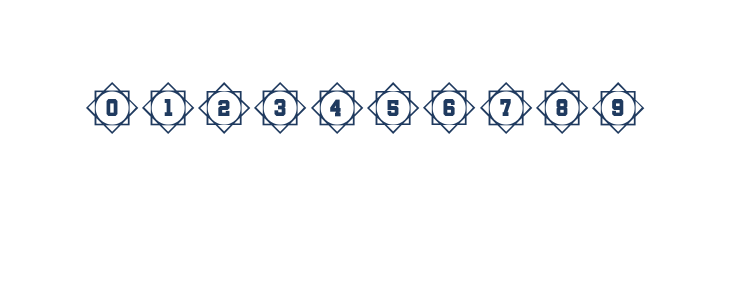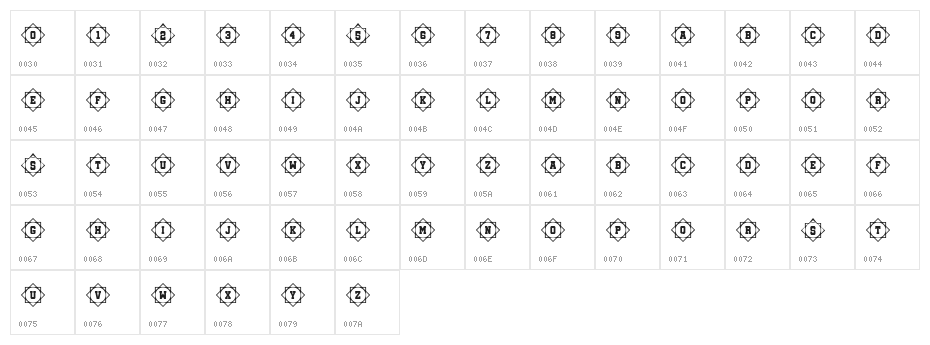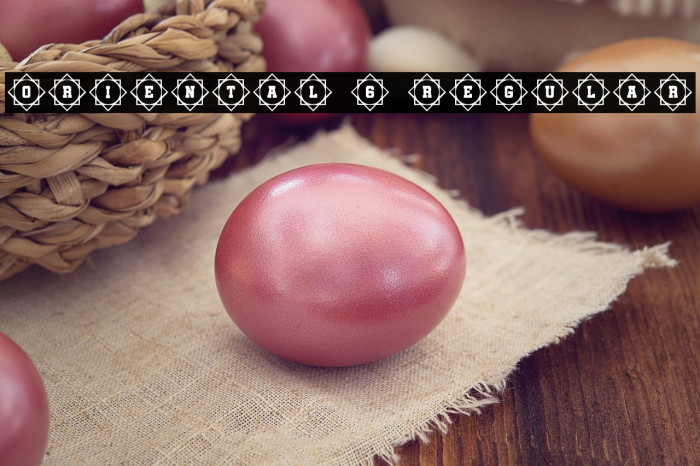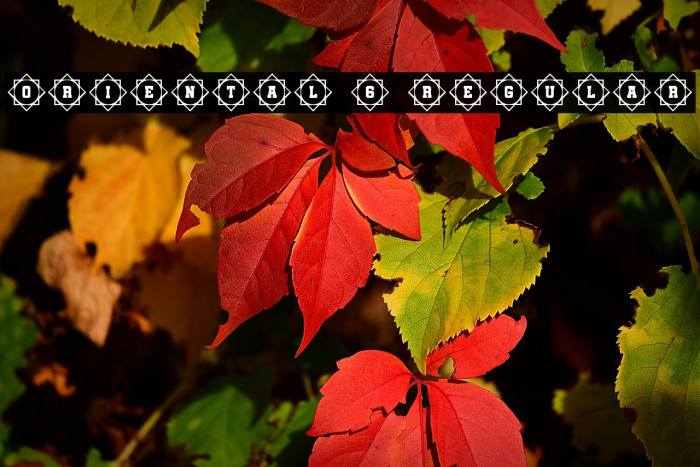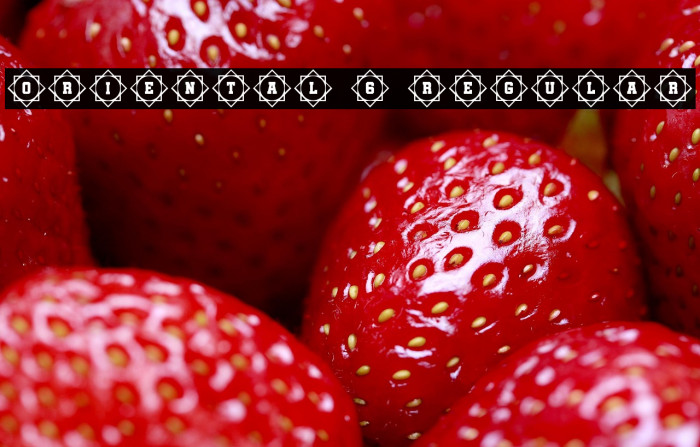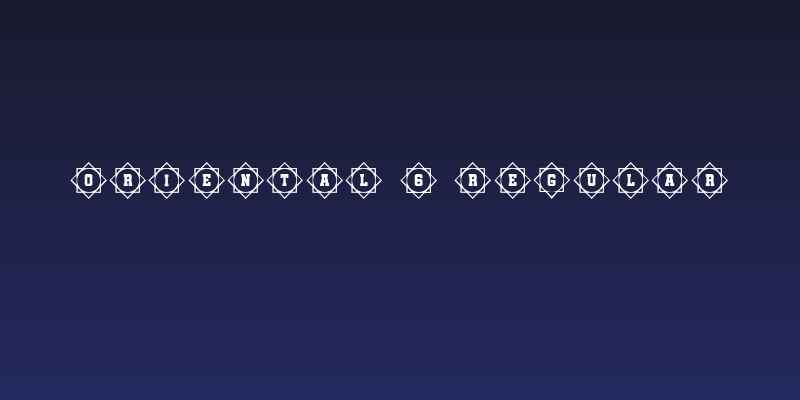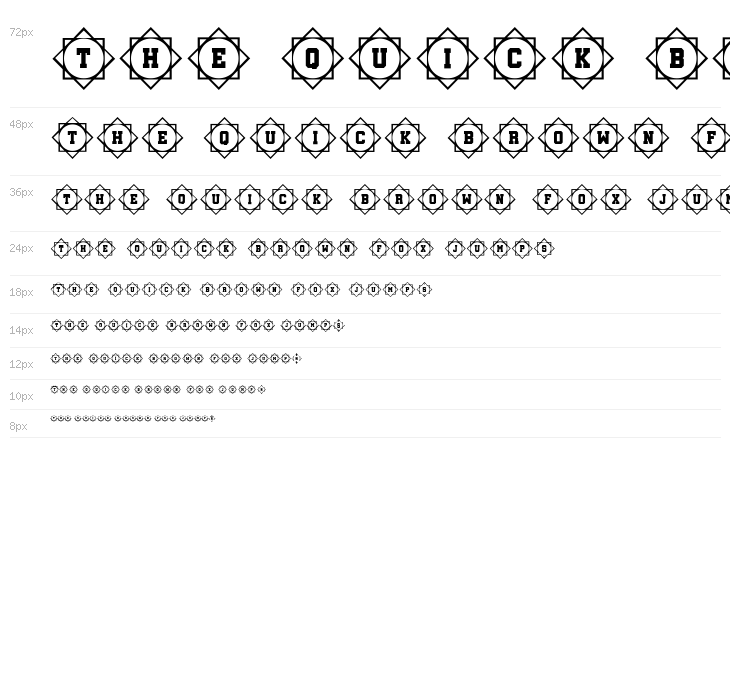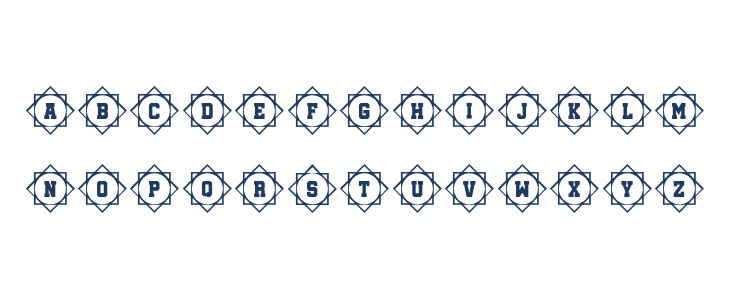
Oriental 6 Regular Font
Oriental 6 Regular Description
This font features a unique design where each character is enclosed within a decorative star-like shape, creating a distinct and ornamental appearance. The characters themselves are bold and geometric, with a consistent thickness throughout. The overall style is decorative, making it stand out for creative and artistic projects. The font includes uppercase letters, lowercase letters, numbers, and a selection of special characters, all maintaining the same enclosed design. This consistent motif gives the font a cohesive and visually striking look, ideal for projects that require a touch of elegance and flair.